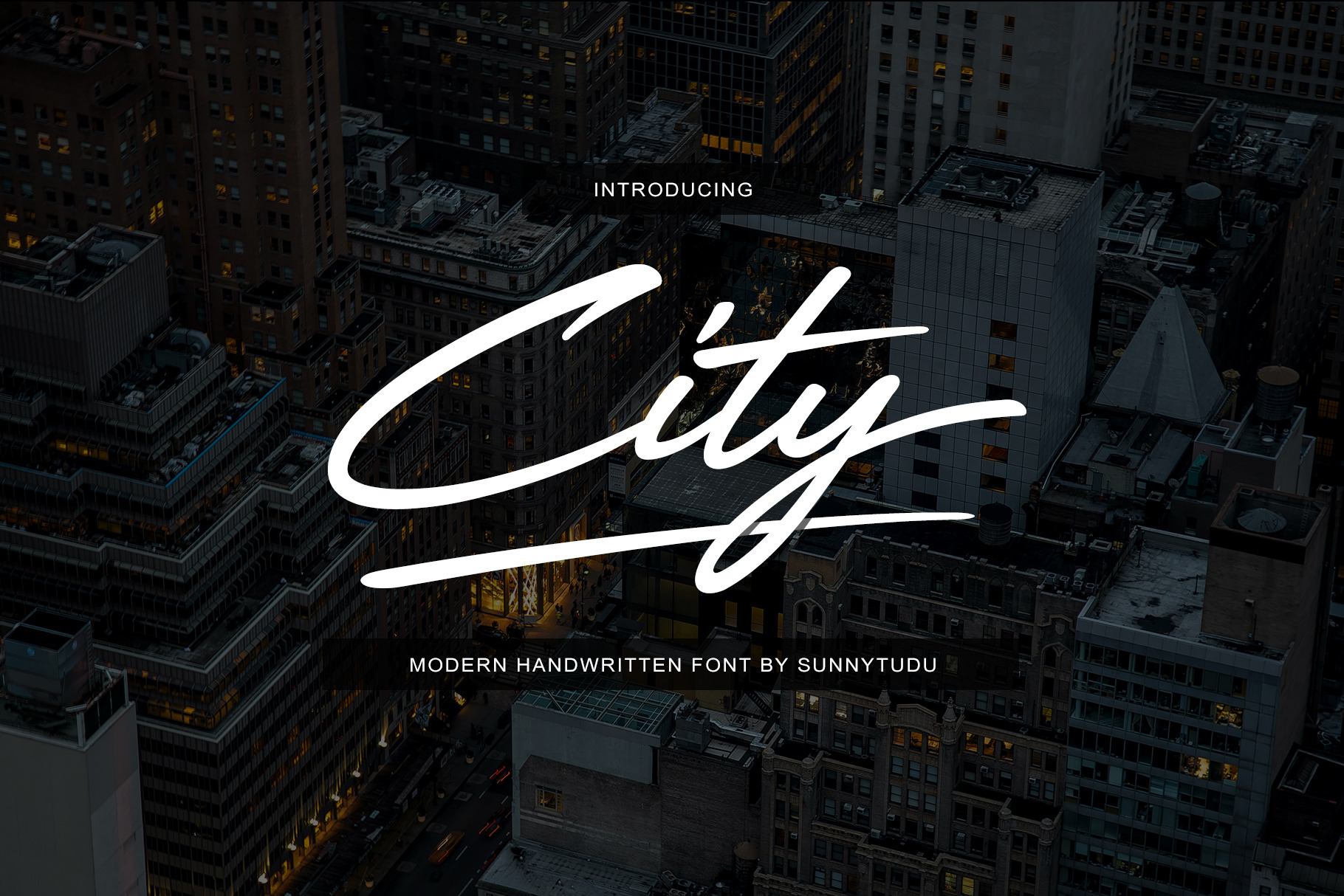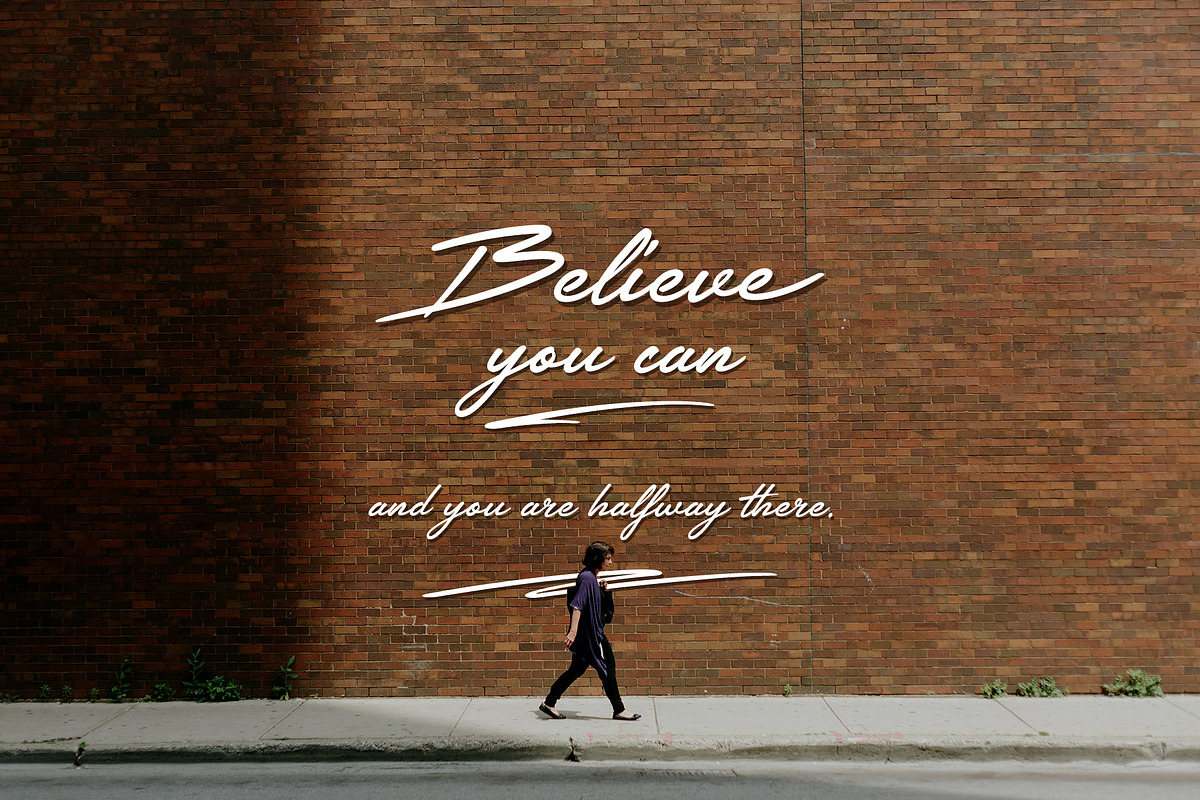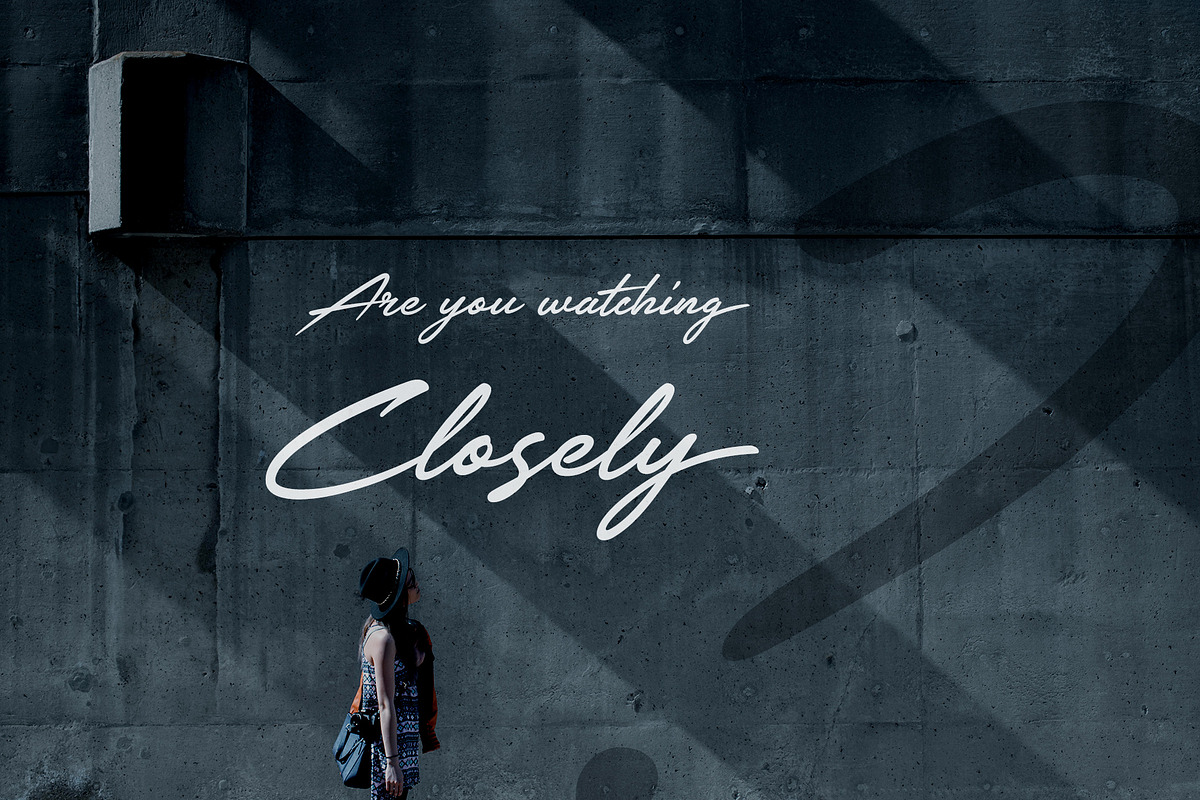
City Handwritten Font
City is a nice handwritten font. It gives a complete authentic feel on your text.
Total 240 glyphs available including alphabets, numerals, punctuation, ligature, swash and international characters.
Standers Letters Ending swash Ligatures Underline strokes Multilingual Letters